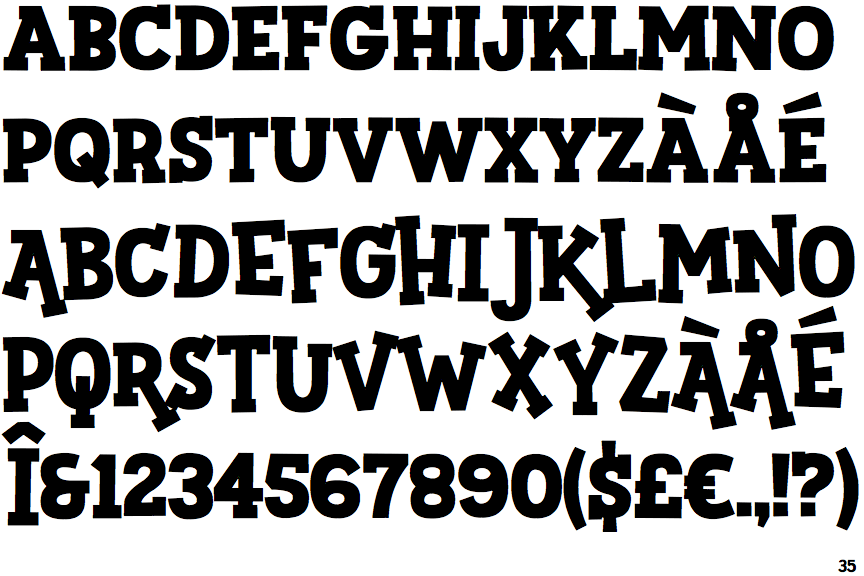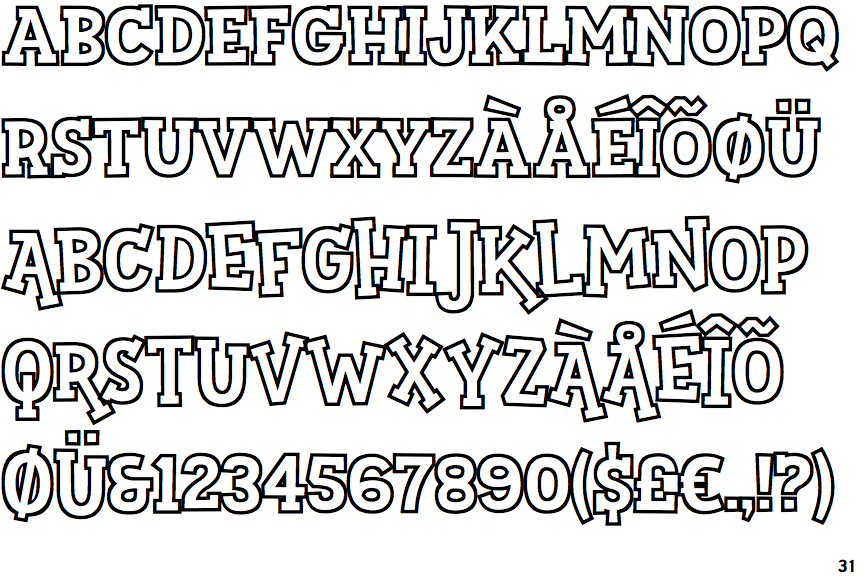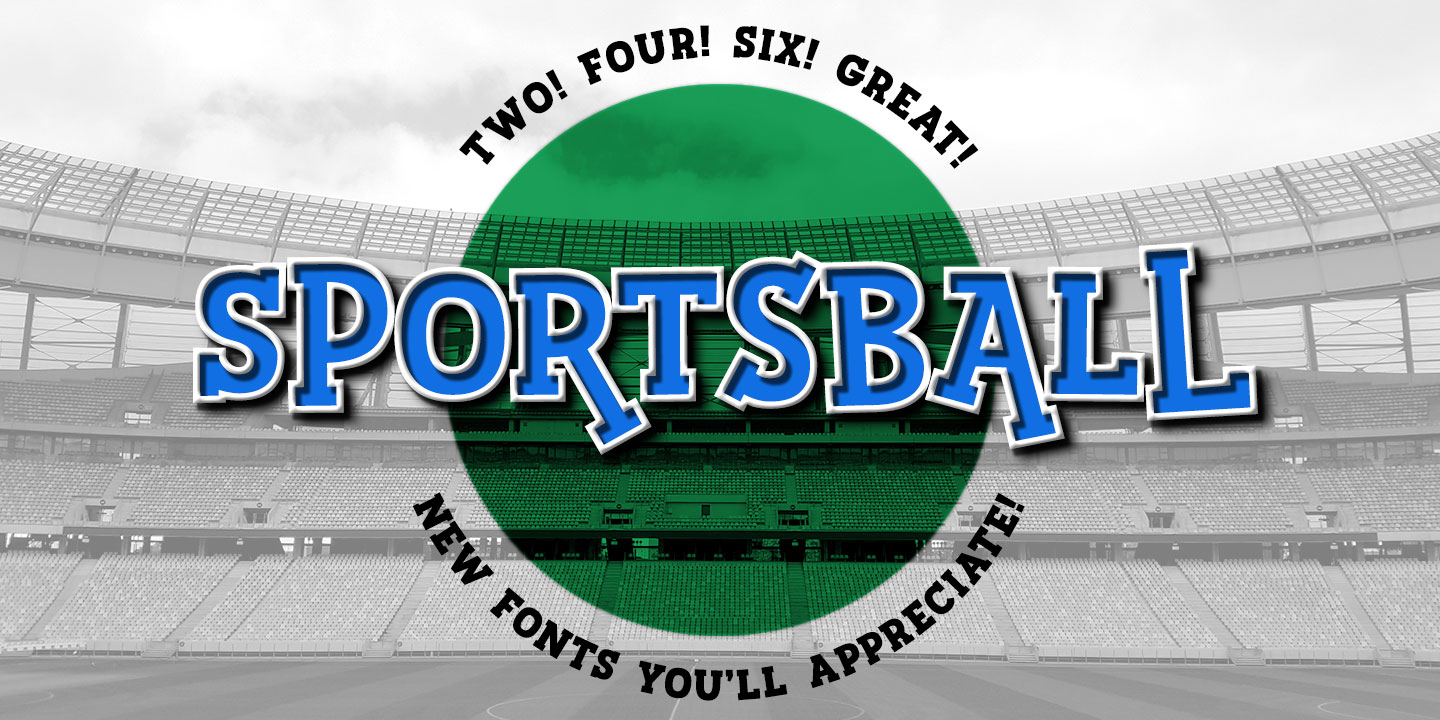
Sportsball Slab Font . Every font is free to download! This font features bold, thick strokes with a playful and dynamic style. Looking for slab sports fonts? Trusted by millions + easy to use font files + full support. Then i made the lowercase set, where every letter is a bit different. A bold, playful slab serif font with strong, dynamic strokes. The uppercase set is straightforward, and can be used for a wide variety of projects. Click to find the best 37 free fonts in the slab sports style.
A bold, playful slab serif font with strong, dynamic strokes. This font features bold, thick strokes with a playful and dynamic style. Every font is free to download! Looking for slab sports fonts? Trusted by millions + easy to use font files + full support. Click to find the best 37 free fonts in the slab sports style. Then i made the lowercase set, where every letter is a bit different. The uppercase set is straightforward, and can be used for a wide variety of projects.